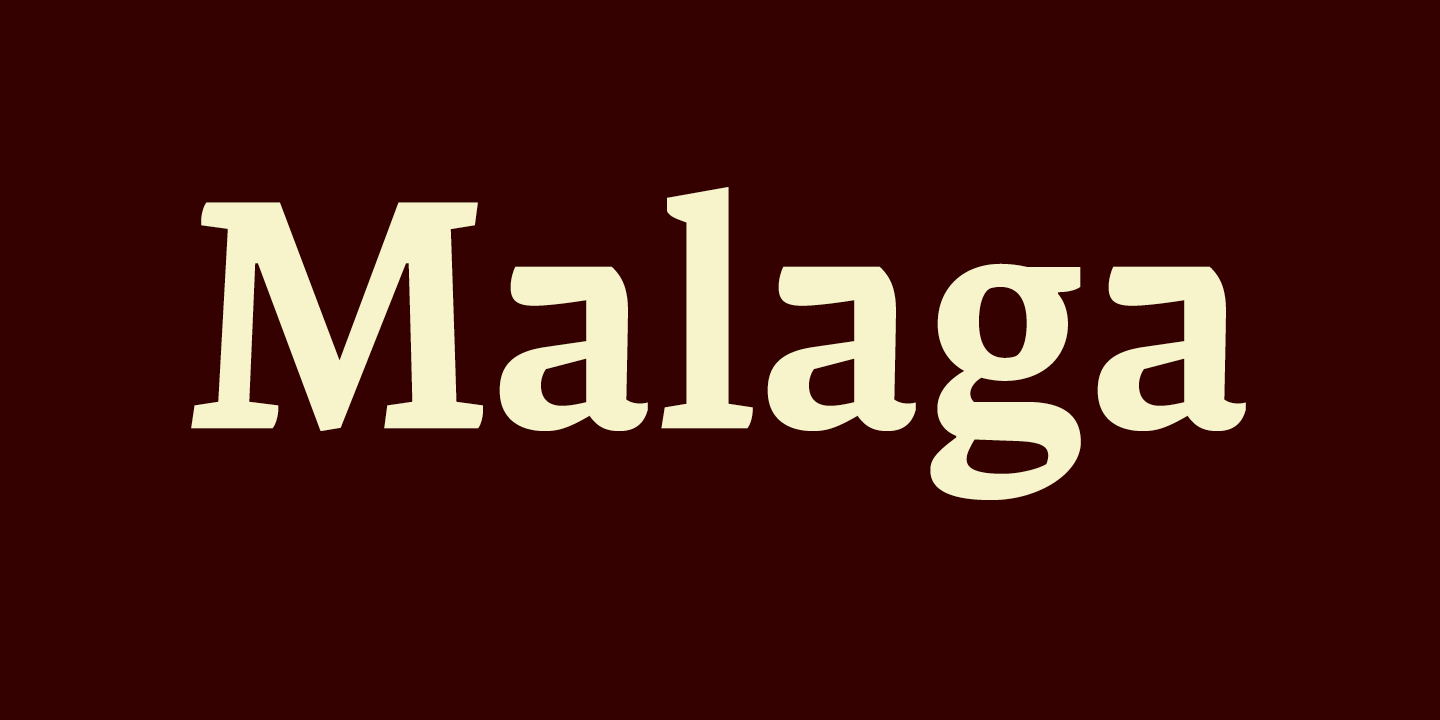
Malaga Font is a sophisticated and highly versatile typeface that brings a touch of classic elegance and modern readability to any design. Its refined character makes it an excellent choice for a wide array of professional applications, including corporate branding, editorial design for magazines and newspapers, elegant website typography, high-end product packaging, and dignified book covers. Whether you're crafting a polished annual report, designing a chic invitation, or developing a brand identity that exudes timeless appeal, Malaga Font delivers clarity, distinction, and an air of understated luxury, ensuring your message is both legible and impactful.
What makes Malaga Font so exciting is its masterful balance of traditional letterforms with contemporary precision. It often features graceful serifs, carefully considered proportions, and a strong sense of visual rhythm that ensures excellent readability, even in long blocks of text. This font carries an inherent gravitas and trustworthiness, making it particularly effective for industries where reliability and heritage are key. It’s the kind of typeface that can lend authority and a sense of established quality to your work, transforming ordinary layouts into something truly distinguished. Its meticulous design speaks volumes about attention to detail, adding a layer of sophistication that resonates with a discerning audience.
The Malaga Font family typically offers a comprehensive range of weights and styles, providing exceptional flexibility for designers. You can expect to find a broad spectrum, from a delicate Thin or Light, through a balanced Regular and Medium, up to a commanding Bold or Black, often accompanied by corresponding italic versions. This extensive family allows for the creation of intricate visual hierarchies, enabling you to highlight important information and maintain a consistent aesthetic across diverse design elements. Each weight within the Malaga Font family retains its characteristic elegance and robust legibility, ensuring a cohesive and professional appearance throughout all your creative projects.